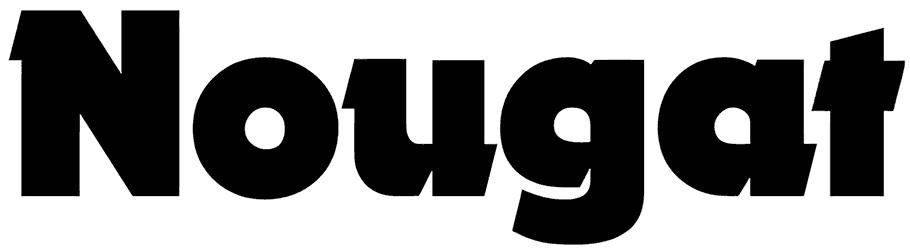
Nougat Font
Designed byDieter Steffmann
Nougat is a retro font; its bold sans serif style characters give your strong typography a traditional feel! It’s playful and informal, plus this font tends to have a mix of old-style with a special modern design.
If you want your design to remind the audience of past decades, then consider adding Nougat. It fits well in branding, banners, posters, websites, and logos as it is simple yet has a unique comforting style that is convincing!